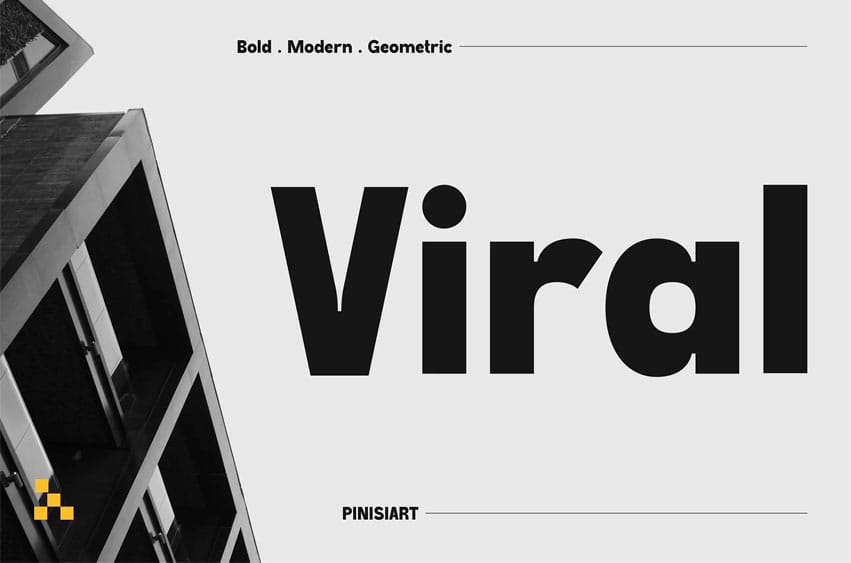
Viral Font is a bold geometric typeface crafted for striking communication, combining sharp terminals, solid proportions, and modern structure. Its letterforms radiate strength while keeping a refined flow, making it both confident and versatile. Designed with a forward-looking vibe, it is perfect for brands and creators seeking a future-ready visual identity with powerful impact across editorials, campaigns, and industrial-inspired projects.
From branding to poster layouts, urban campaigns, editorial spreads, app UI, and exhibition visuals, Viral adapts seamlessly. Its strong yet minimal construction makes it ideal for designers aiming to grab attention, build trust, and communicate authority. Whether for a startup launch, an architecture magazine, or concrete-inspired packaging, Viral offers the boldness and clarity needed to stand out in competitive markets.
Key Features
- Geometric Strength – clean, structured letterforms with modern flow
- High Impact – designed for headlines, branding, and bold editorial layouts
- Versatility – works across digital, print, and environmental graphics
- Timeless Feel – industrial edge with contemporary usability